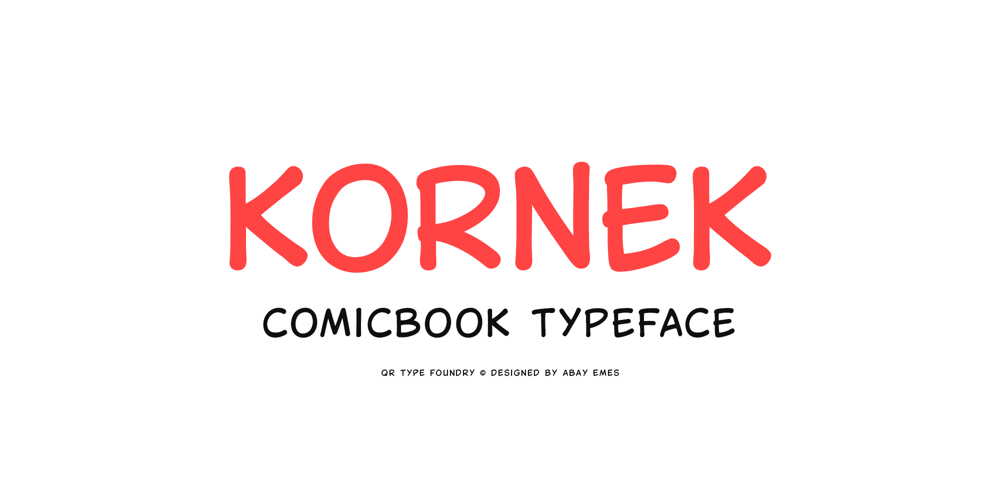
Kornek Font Family was designed by Abay Emes and published by QR Type. Kornek contains 4 styles and family package options. All uppercase typeface for comic book lettering. Supports extended Cyrillic and Latin characters. Has three stylistic sets:1. Alternates for Cyrillic L and D.2. Alternates for U3. Alternates for languages with dotless ı and i with dot (like Turkish)Kornek can be translated from Qazaq as comic. Designed by Abay Emes.